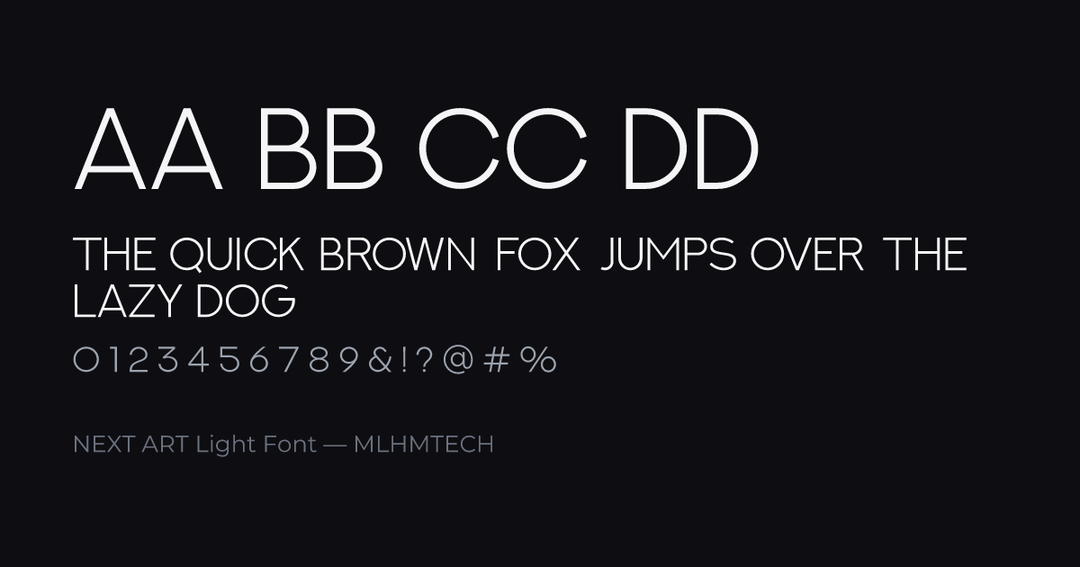
NEXT ART Light Font
NEXT ART Light is a sleek, modern font with a light weight, ideal for contemporary design projects. Its clean lines add an elegant touch to any creative work.
NEXT ART Light is a refined sans-serif font that brings a sense of clarity and sophistication to your designs. Its light weight and balanced proportions make it perfect for headlines, branding, and editorial layouts where a subtle yet impactful typeface is needed.